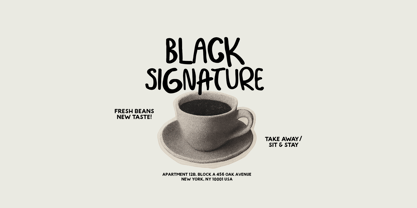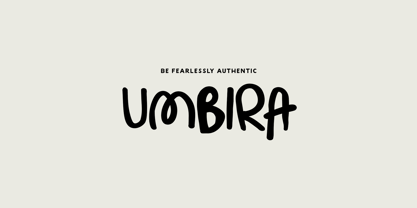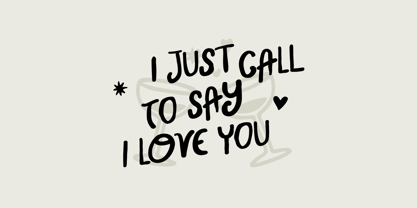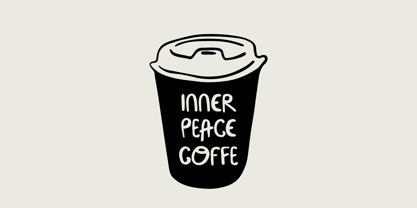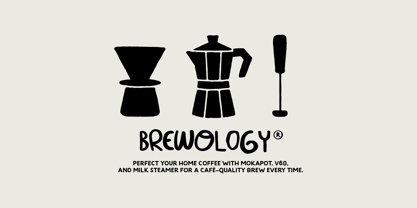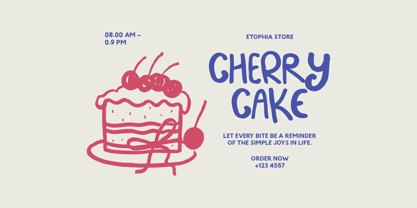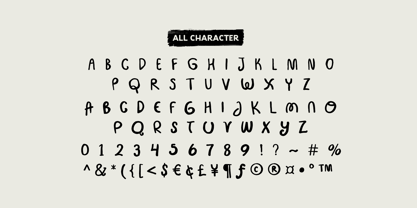
Umbira
by Gholib Tammami
The Umbira Font Family was designed by Gholib Tammami and published by Gholib Tammami. Umbira contains 1 styles. More about this family
Umbira is a unique handwritten font featuring organic, flowing letterforms. Its distinct style blends natural fluidity with a creative, artistic flair, making it perfect for designs that require a personal, authentic touch.
Designers: Gholib Tammami
Foundry: Gholib Tammami